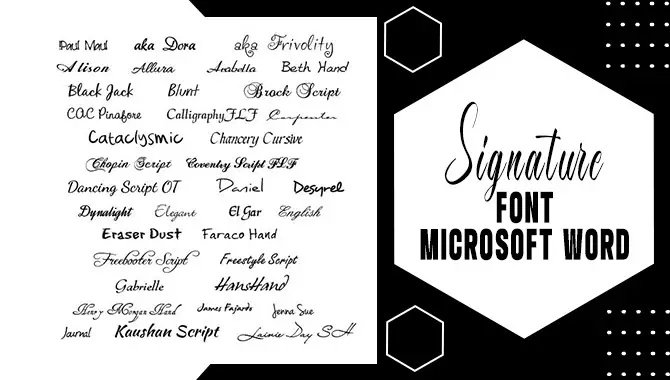
Microsoft Word offers a variety of fonts to choose from, including signature fonts that can add a personal touch to your documents. These fonts are designed to resemble handwritten signatures, giving your documents a unique and professional look.
Whether you want to add a signature to an email or create a custom logo for your business, Microsoft Word has the tools to create the perfect signature font.
We will introduce you to the best signature fonts available in Microsoft Word. From elegant and sophisticated options like Edwardian. But it doesn’t stop there – we’ll also show you how to install the signature font microsoft word and use them effectively. Get ready to make a lasting impression with your documents.
Best Signature Font Microsoft Word
A carefully selected signature font can significantly impact your professional documents. It adds a personal touch and boosts the overall impression of your work. Microsoft Word offers a wide range of popular signature fonts that you can use to create a stylish and professional signature.
When it comes to choosing the best signature font in Microsoft Word, there are several options to consider. Some popular choices include. Ultimately, the best signature font microsoft word, will depend on your preference and the style you want to convey. It’s always a good idea to experiment with different fonts until you find the one that feels right.
Edwardian Script ITC
Edwardian Script ITC, a popular font option in Microsoft Word, exudes elegance and sophistication. It’s beautiful cursive lettering and stylish flourishes bring a touch of class to formal documents and invitations.
Whether you want to create personalized signatures or add a touch of elegance to your documents, Edwardian Script ITC is a great choice. Explore other popular signature fonts in Microsoft Word, such as Monotype Corsiva and Lucida Handwriting, to discover the perfect font for your needs.
Bradley Hand Itc
Bradley Hand ITC is widely recognized as one of the best signature fonts in Microsoft Word. Its elegant and handwritten appearance brings a personal and unique touch to various documents, including signatures, invitations, letters, and more.
Its casual and informal style imitates natural handwriting, providing a comfortable reading experience for print and digital materials. If you’re looking for alternatives, consider checking out Signerica Fat, Chopin Script, or Pacifico, as they offer their own distinct flair and charm.
Brush Script Mt
Brush Script MT is popular for creating a signature-like font in Microsoft Word. This font provides a handwritten appearance, adding a personal touch to your documents and giving them a unique flair. To use Brush Script MT in Microsoft Word, navigate to the “Font” menu and select it from the available options.
Adjust the size and formatting as desired to create your custom signature font. Experiment with different fonts and styles, such as cursive or script fonts, to find the one that best represents your own handwriting. Brush Script MT is one of the best signature fonts available in Microsoft Word, perfect for adding elegance and sophistication to your documents.
Vladimir Script
Vladimir Script is a popular choice for creating a signature-like font in Microsoft Word. It’s elegant and flowing script style adds a personal touch to documents or designs. To use Vladimir Script in Microsoft Word, download it from a font website or use the pre-installed fonts on your computer.
Once installed, select Vladimir Script from the font options and type out your signature or text. Experiment with different sizes and formatting options to achieve the desired look for your signature in Microsoft Word.
Mistral
With its flowing and elegant style, Mistral is a versatile signature font that adds a touch of sophistication to your Microsoft Word documents. Whether you want to create personal signatures or give your documents a professional touch, Mistral is an excellent choice.
Installing and using Mistral in Microsoft Word is easy, making it accessible even to beginners. Stand out from the crowd and add a touch of elegance to your documents with Mistral, a beautiful cursive font that brings a natural handwriting-like flair to your work.